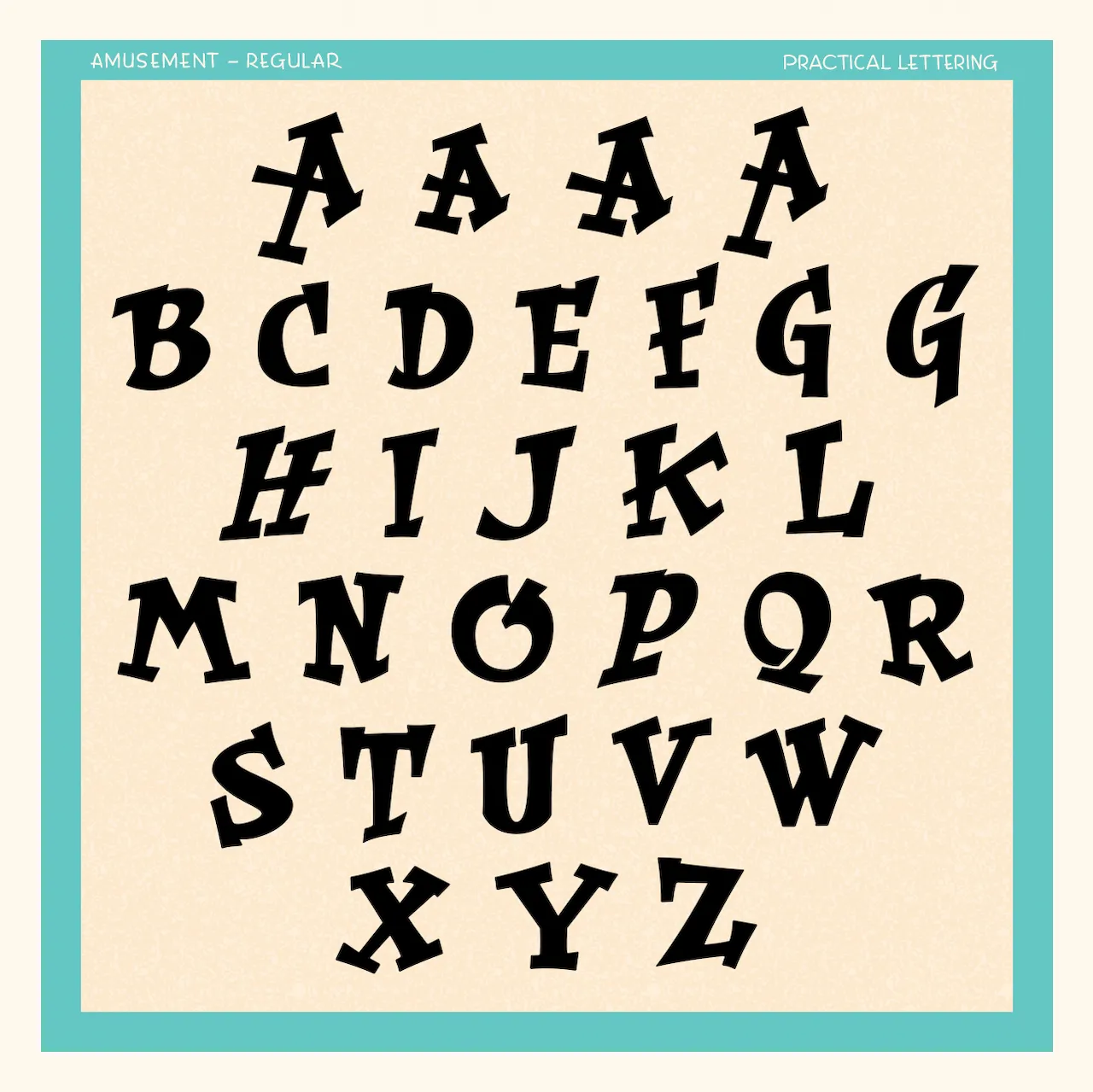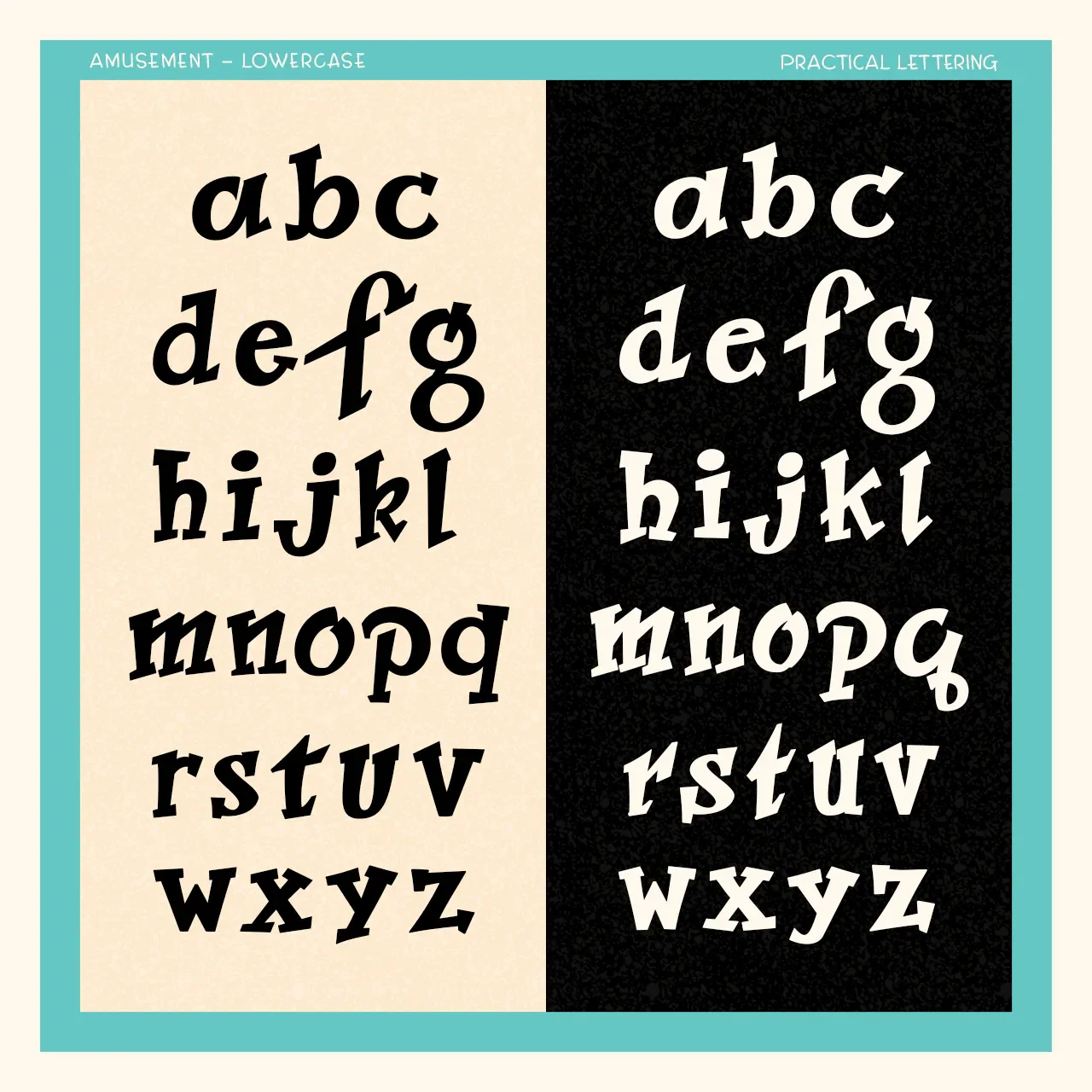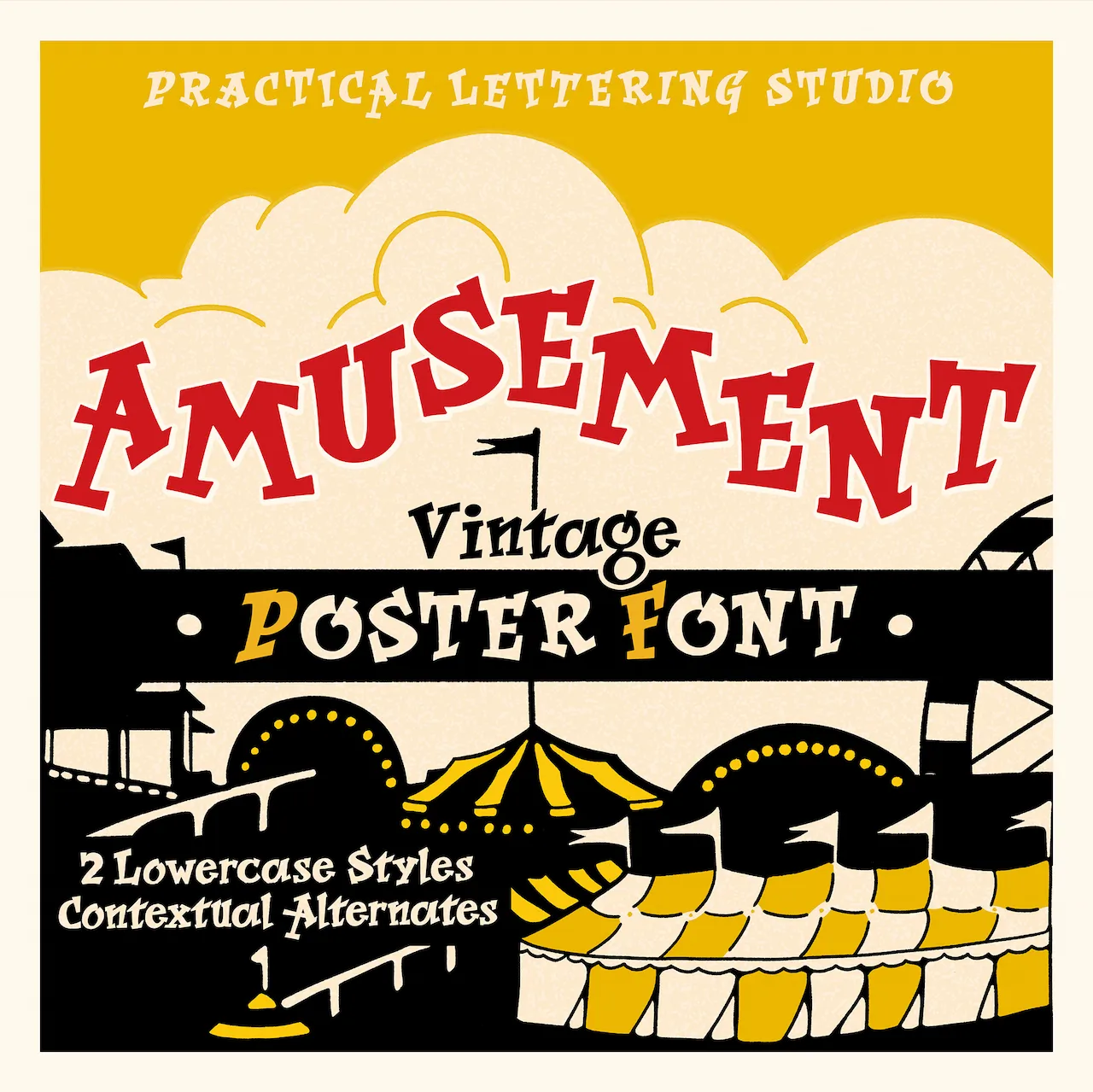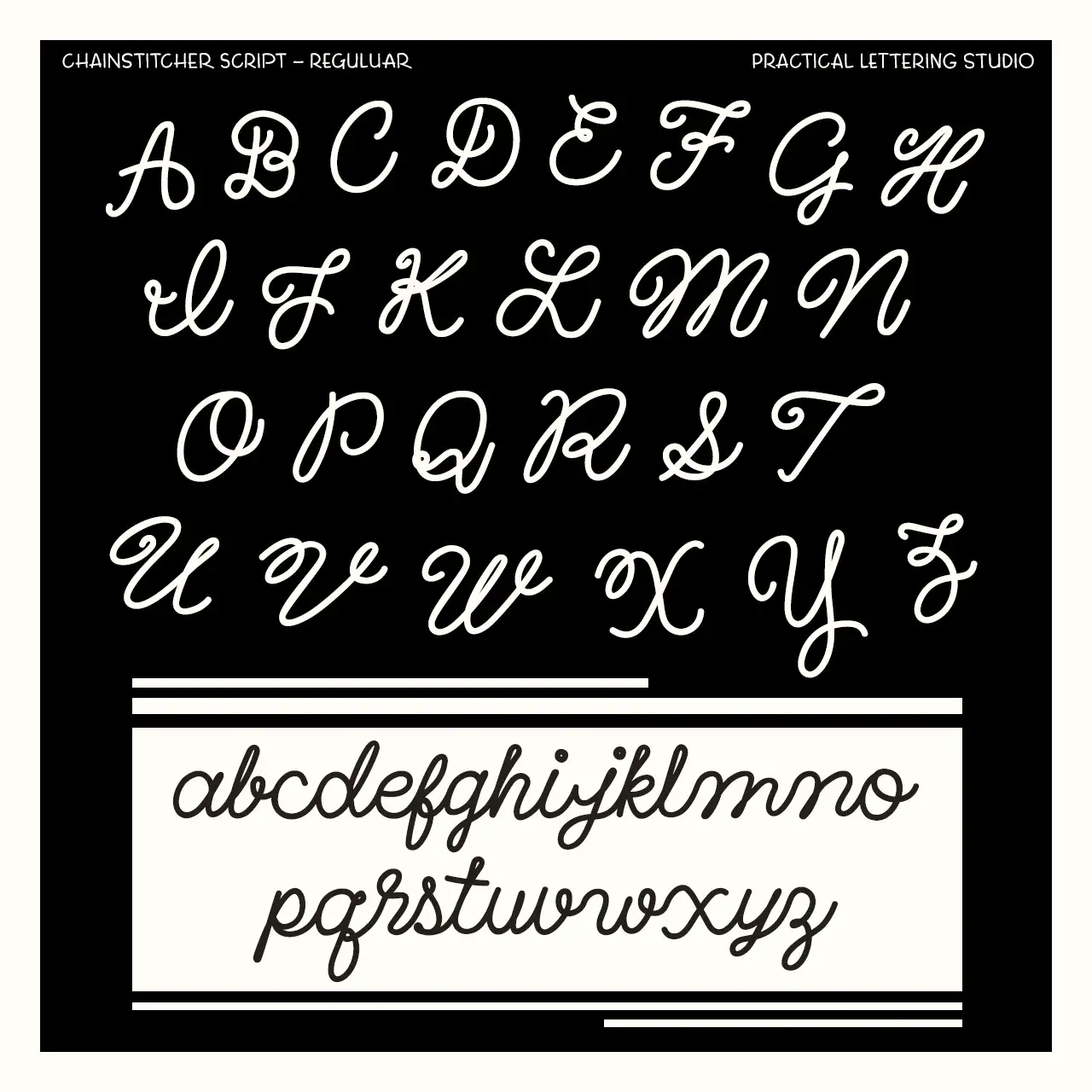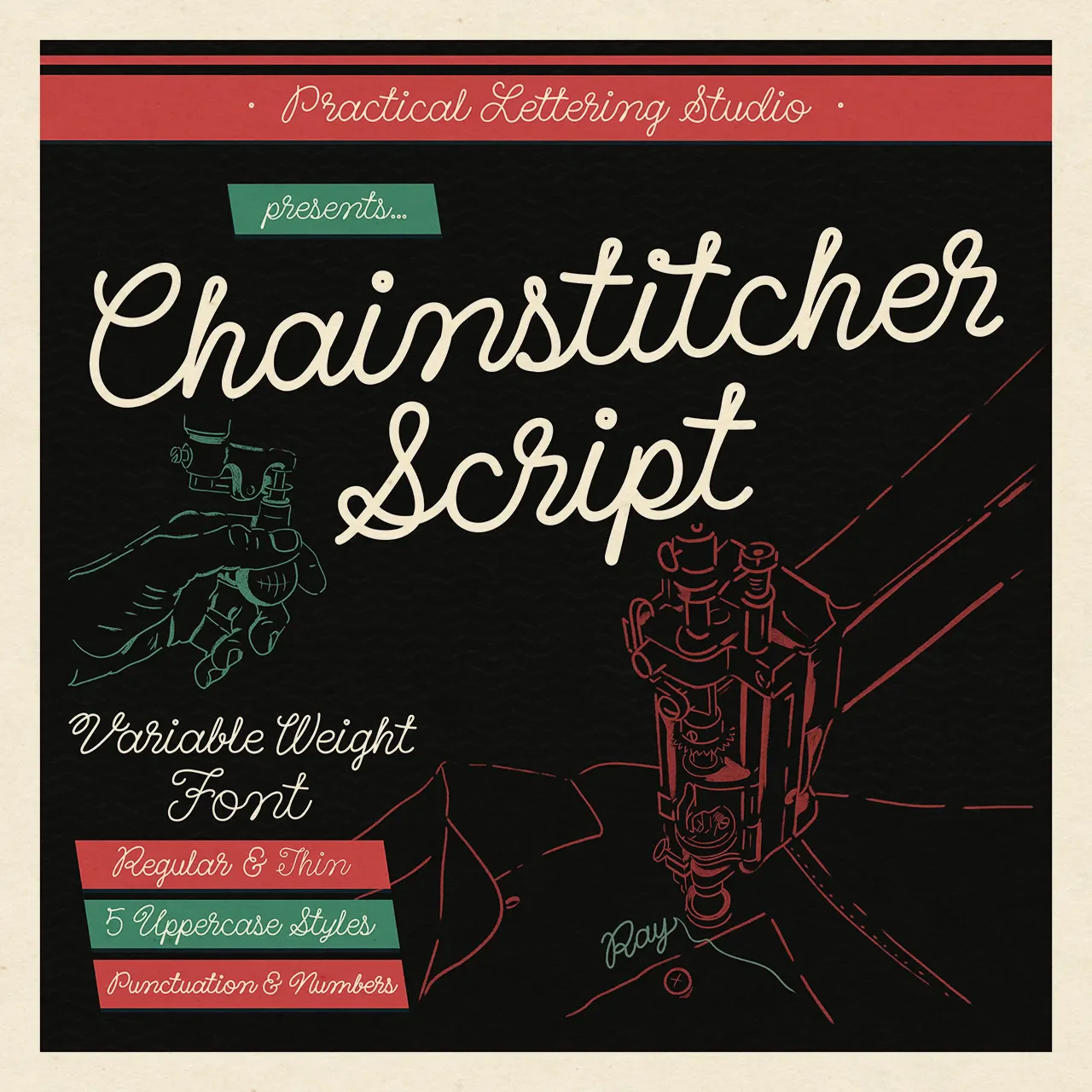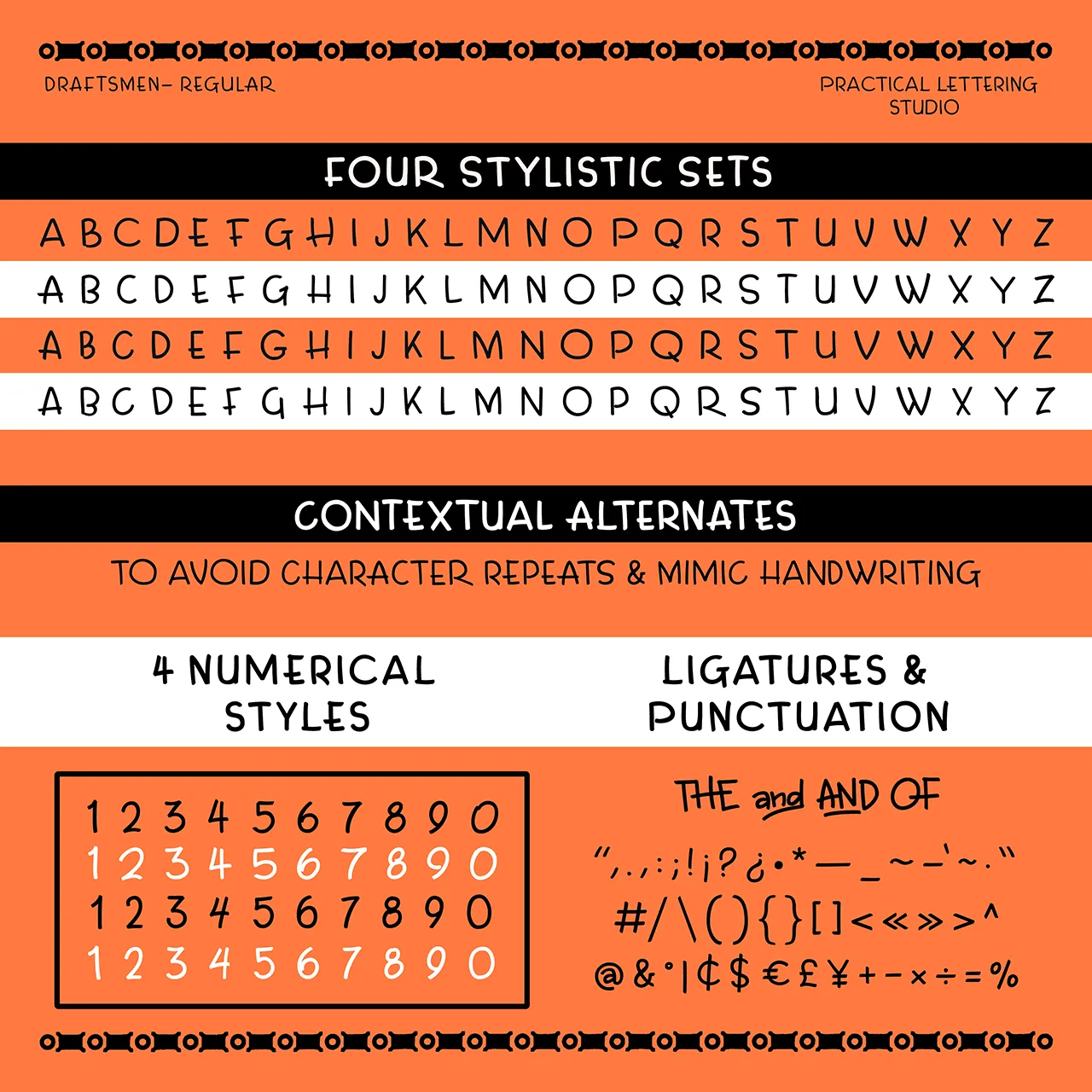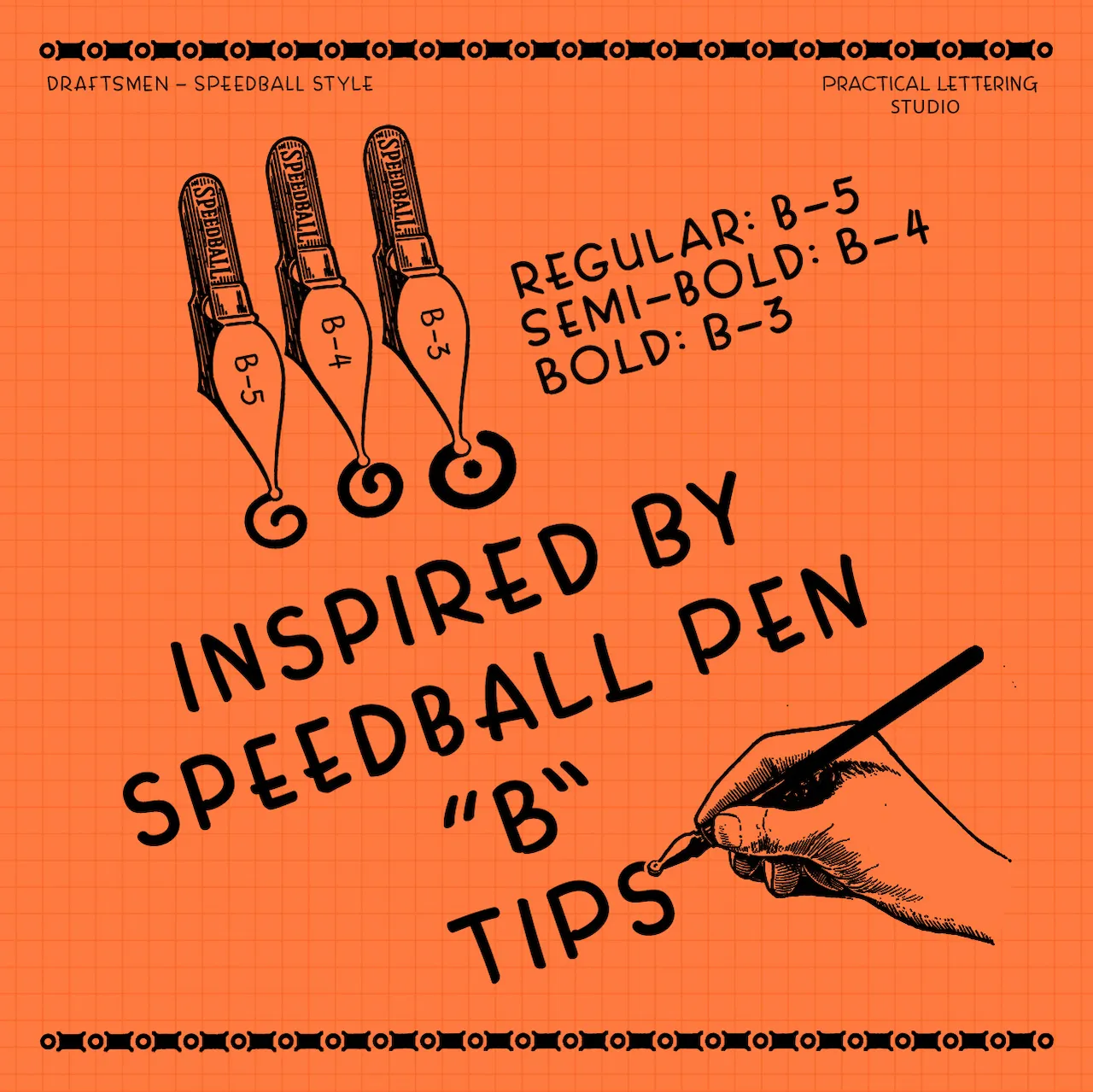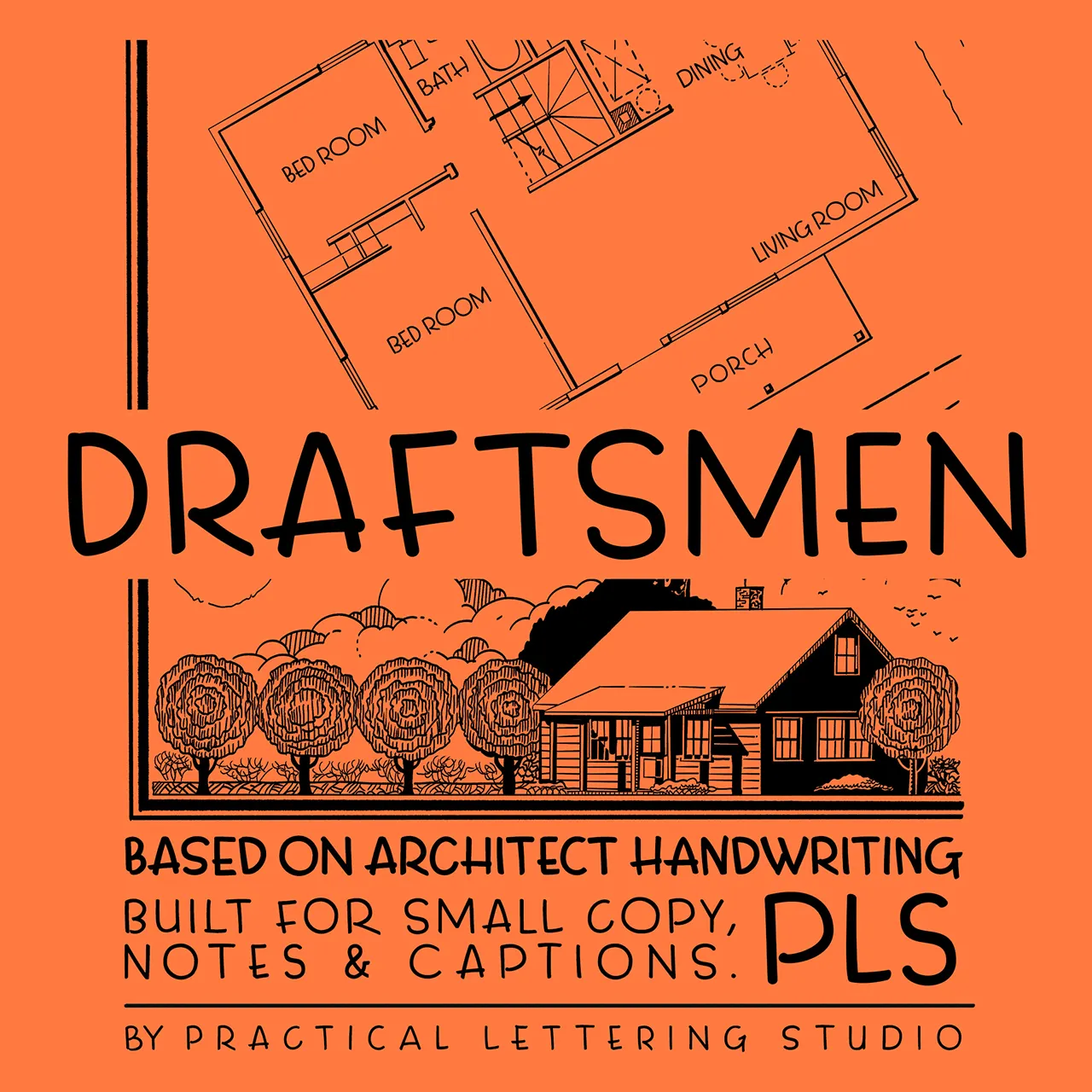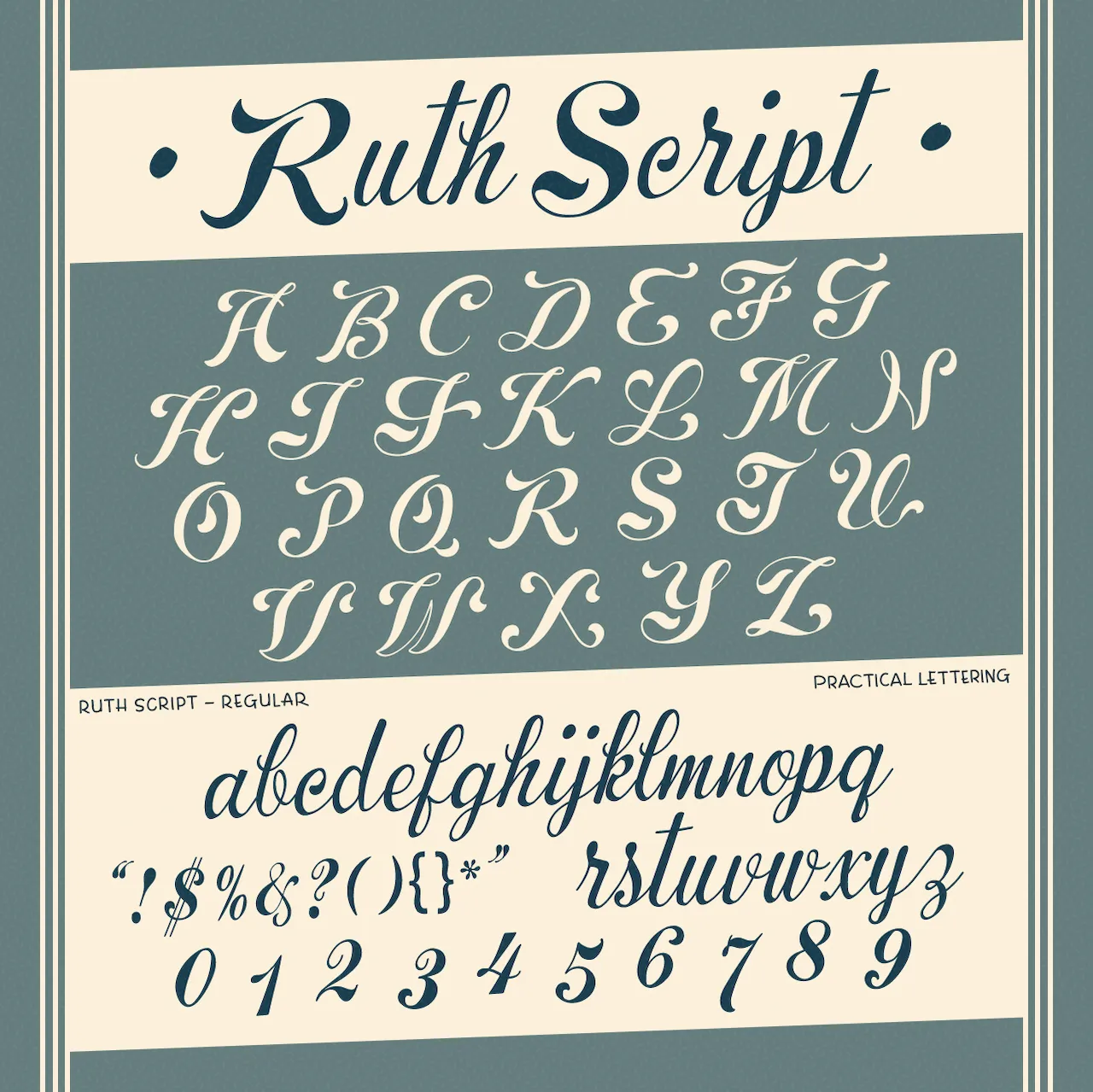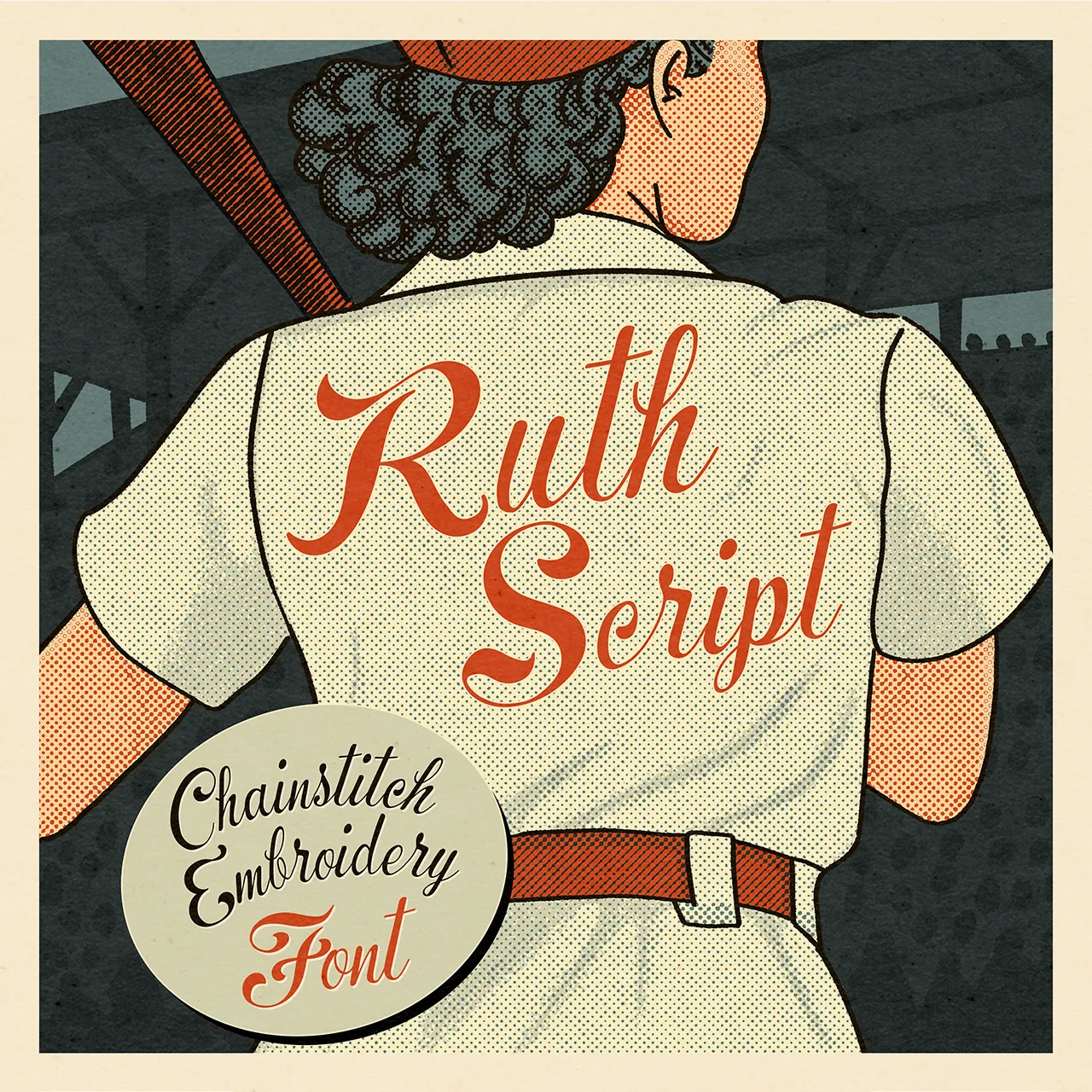
Practical Lettering Studio [Noah Johnson]
Noah Johnson the designer behind Practical Lettering Studio, a vintage-style type foundry based in Los Angeles. Designer of the free fat finger font Noah (2016). Commercial typefaces include:
• PLS Amusement (2026). This amusement park-themed font is based on a hand-painted alphabet created by sign painter Alf Becker in the mid 1940s for Signs of the Times magazine.
• PLS Chainstitcher Script. Designed to evoke the hand-operated look of chain-stitch embroidery.
• PLS Draftsmen. A monoline Speedball-style font inspired by the traditional draftsmen handwriting seen on early 20th century blueprints and shop drawings.
• PLS Neutun (2026). A variable script based on Rudolf Koch's famous 1923 poster font Neuland.
• PLS Ruth Script. Based on Ruth Franklin's 1950's Artistic Script.
• No. 37 Alf Becker Alphabet. Art deco.
• No. 41 Alf Becker Alphabet. Art deco at its best.
• No. 55 Alf Becker Alphabet. Goofy lettering based on Alf Becker's Bold Frolic.
• No. 137 Alf Becker Alphabet. An art deco typeface based on a hand-lettered alphabet by Alf Becker from 1943.
• No. 210 Alf Becker Alphabet. Based on a 1949 brush script called Extreme Modern Sans Serif by sign painter Alf Becker.